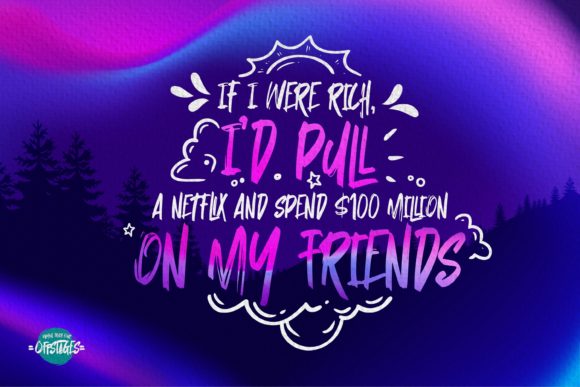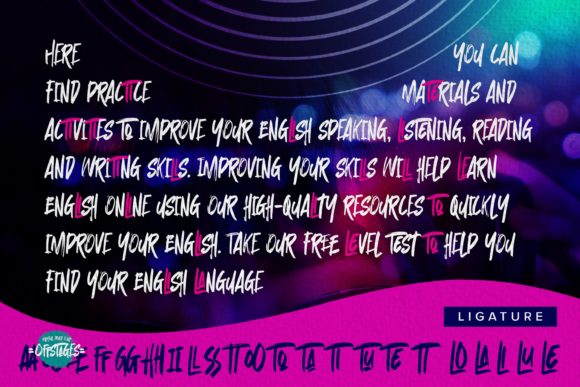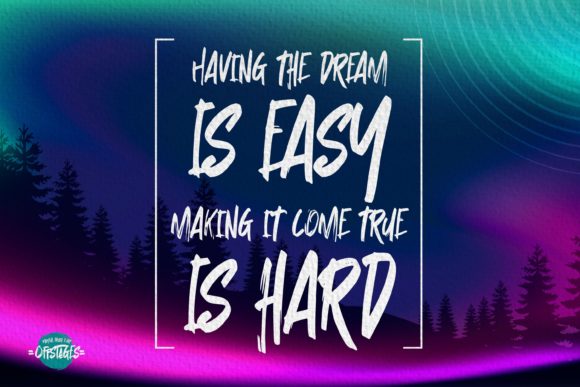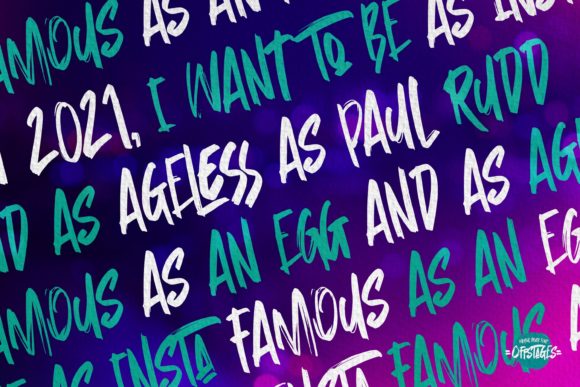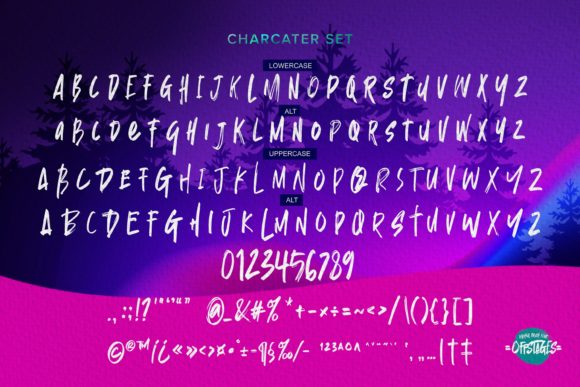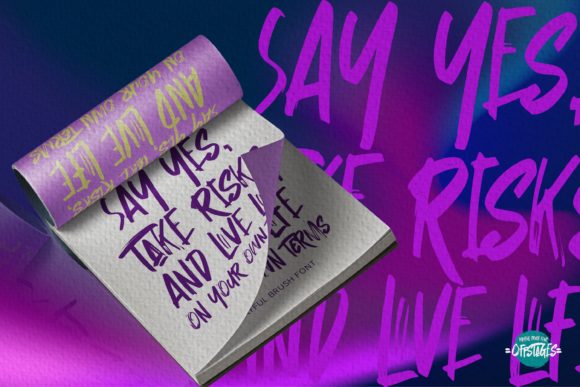
Introduction to Offstages Font
Remember that moment when you’re working on a creative project and you’re stuck on the perfect font? You’ve got a vision in your head, but nothing seems to match the energy and style you’re going for. That’s where the Offstages Font comes in – a high-quality, graffiti-styled display font that’s about to revolutionize your design game.
As a valuable design resource, Offstages Font is perfect for designers who want to add a touch of street art to their work. With its futuristic vibe and bold characters, this font is ideal for t-shirts, sportswear, logos, advertisements, clothing, and more. Plus, with a transparent background, you can easily combine it with other design elements to create a truly unique look.
- Unique characteristic: Offstages Font features a distinctive, hand-drawn aesthetic, making it perfect for adding a personal touch to designs.
Honest Review: Offstages Font
I recently had the chance to work with the Offstages Font, and I must say it’s been a game-changer for my creative projects. This high-quality font has been a design resource that I’ve been searching for, and I’m glad I found it.
- ✨ Unique design: The Offstages Font has a distinct style that adds a touch of sophistication to any project.
Overall, I’m impressed with the Offstages Font. It’s a valuable addition to any design toolkit, and I’m excited to see how it will enhance my future projects.
Alternatives to Offstages Font
Compared to Offstages Font, Great Vibes Font has a more refined and polished look, making it suitable for a wider range of design applications.
Compared to Offstages Font, Alex Brush Font has a more organic and natural feel, making it ideal for creative projects that require a sense of authenticity.